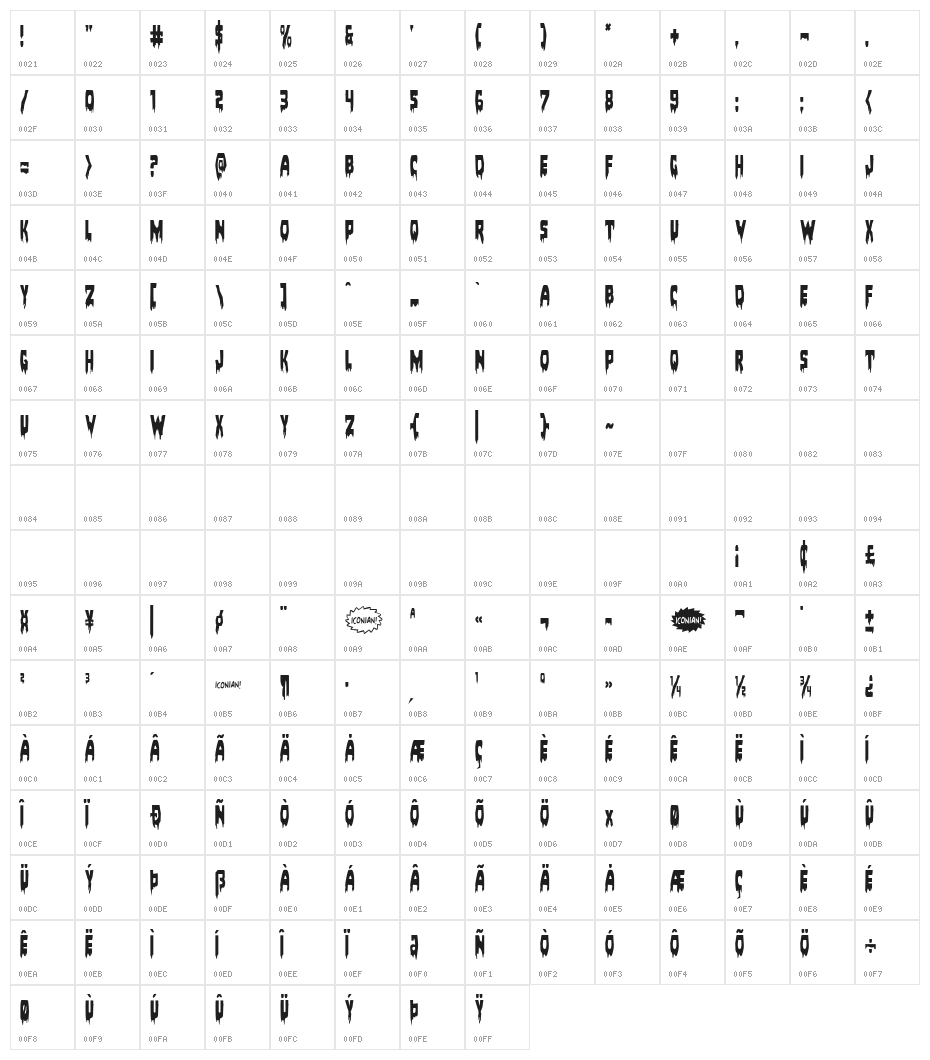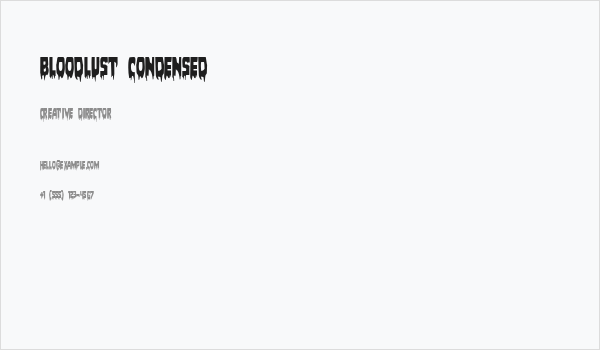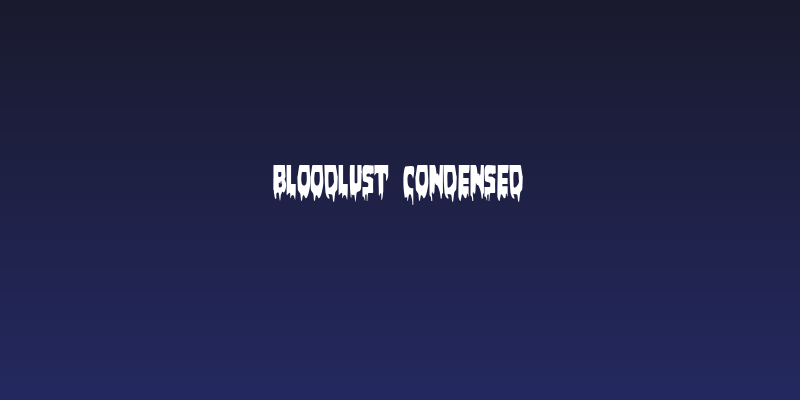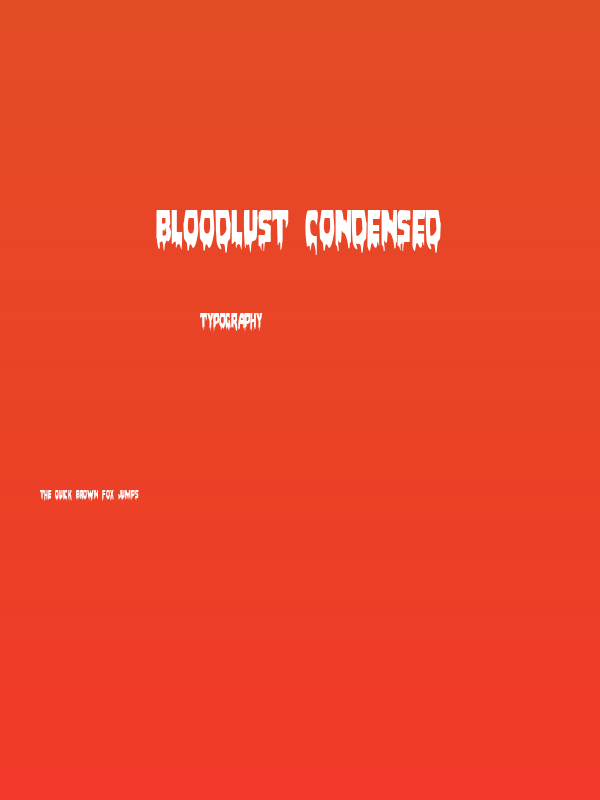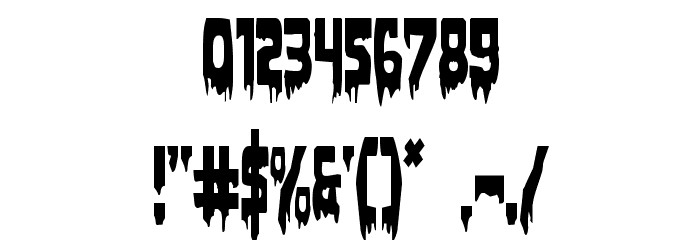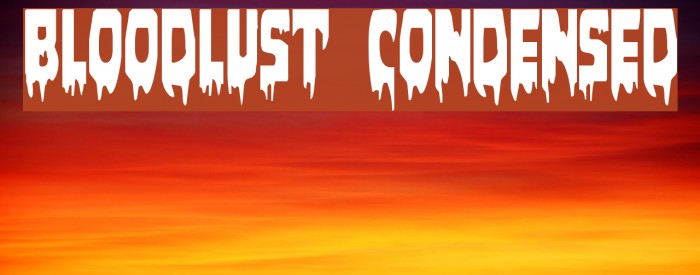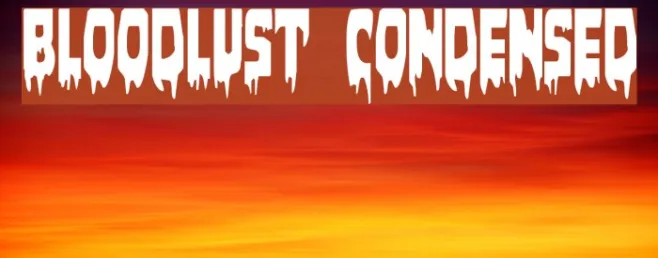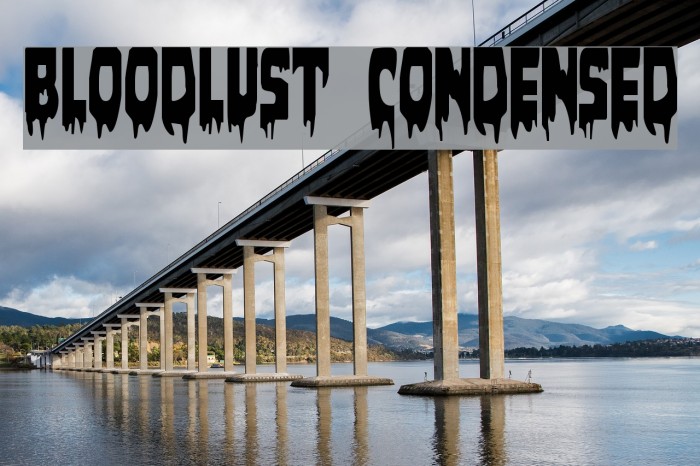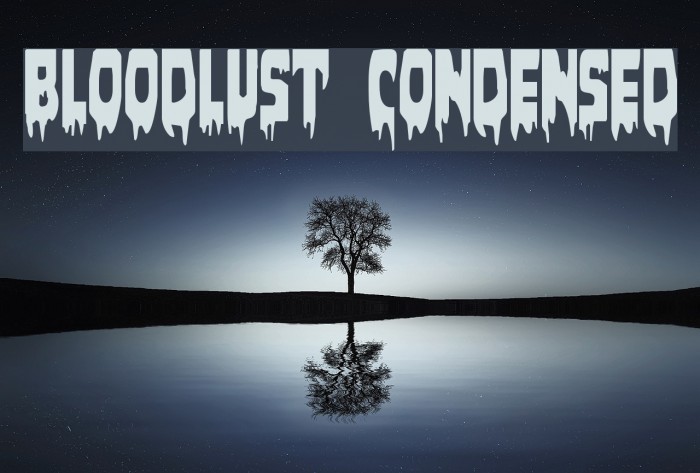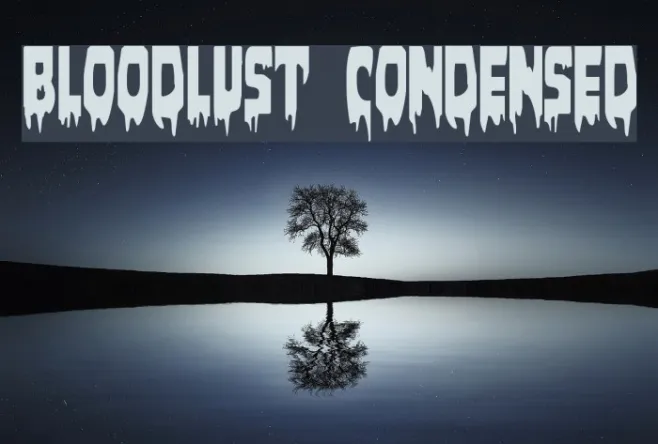
Bloodlust Condensed Font
Bloodlust Condensed Description
This font features a dramatic and eerie design, with each character appearing as if it is dripping or melting, reminiscent of horror or Halloween themes. The uppercase and lowercase letters maintain a consistent style, with sharp edges and elongated forms that enhance the unsettling effect. Numbers and special characters follow the same aesthetic, ensuring a cohesive look across all text elements. The condensed nature of the font allows for tight spacing, making it suitable for impactful headlines or titles. Its unique style is perfect for creating a spooky or gothic atmosphere in design projects.
| Proposed Projects | Halloween posters, horror movie titles, themed event invitations, haunted house flyers. |